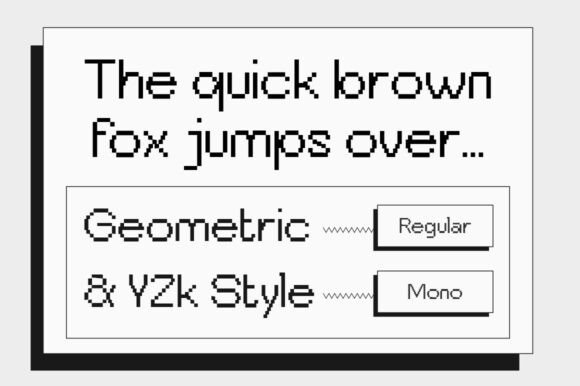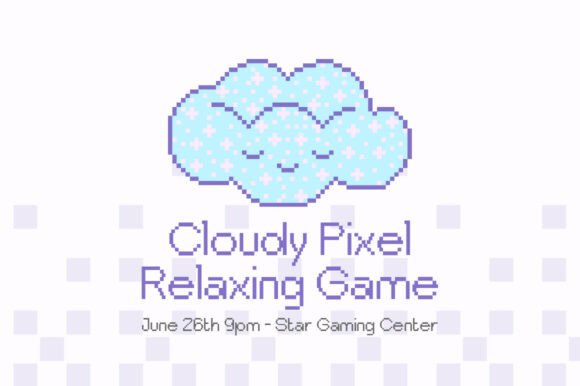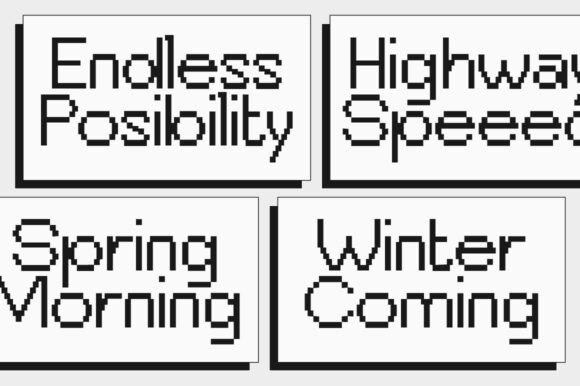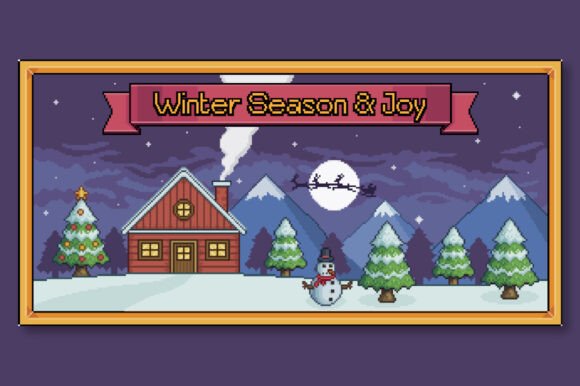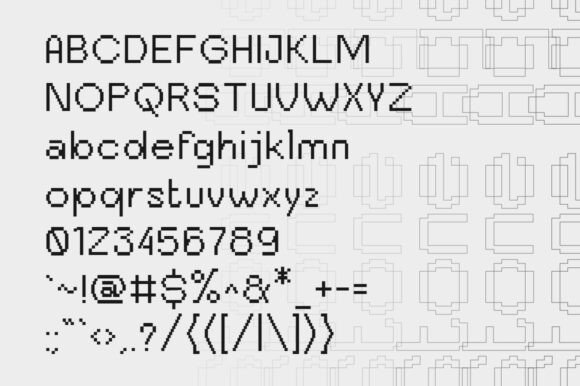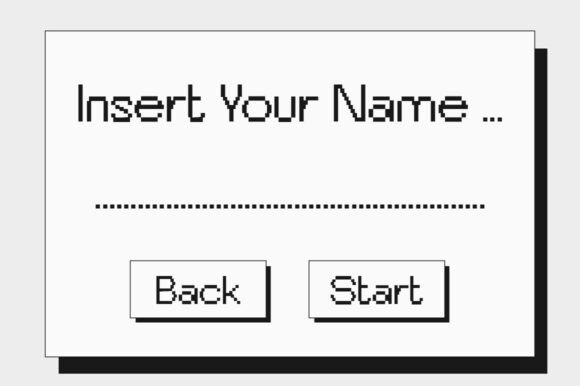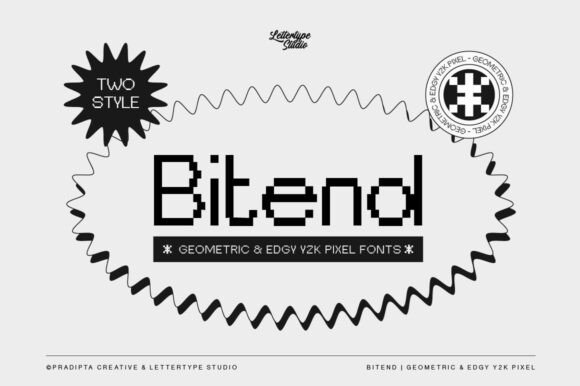
Introducing Bitend Font: The Ultimate Geometric, Edgy Pixel Y2K Font
Are you ready to add a bold, retro-inspired touch to your designs? Look no further than Bitend Font, a geometric, edgy pixel Y2K font that combines the nostalgic styles of the 80s and 2000s. This versatile font is perfect for creating eye-catching headlines, logos, pixel games, 8-bit game interfaces, and editorial content that demands attention.
A Blast from the Past: Nostalgic 80s and 2000s Styles
Bitend Font is a masterful blend of retro styles, bringing together the geometric and pixelated elements of the 80s and 2000s. The result is a font that is both nostalgic and modern, with a unique vintage flair that sets it apart from other fonts. Whether you’re designing a logo, creating a pixel game, or crafting editorial content, Bitend Font is the perfect choice for adding a playful yet impactful touch to your project.
Versatile and Adaptable: Perfect for a Variety of Uses
One of the standout features of Bitend Font is its versatility. This font is ideal for a wide range of applications, including:
- Headlines: Create bold, attention-grabbing headlines that demand attention.
- Logos: Design unique, memorable logos that showcase your brand’s personality.
- Pixel Games: Add a retro touch to your pixel games with Bitend Font’s pixelated style.
- 8-bit Game Interfaces: Create authentic, retro-style game interfaces with ease.
- Editorial Use: Add a touch of nostalgia to your editorial content, such as articles, blog posts, and more.
Multiple Styles and Multilingual Support
Bitend Font offers two distinct styles: normal and monospaced. This allows you to choose the perfect style to suit your design needs. Additionally, Bitend Font includes multilingual support, making it easy to use in a variety of languages and contexts.
Exceptional Legibility: Works in Large and Small Sizes
One of the key benefits of Bitend Font is its exceptional legibility. Whether you’re using it in large or small sizes, Bitend Font remains clear and easy to read. This makes it perfect for a wide range of applications, from billboards and signage to digital screens and print materials.
- Font Styles: 2 styles (normal and monospaced)
- Language Support: Multilingual support
In conclusion, Bitend Font is a versatile, geometric, edgy pixel Y2K font that is perfect for designers and crafters who want to add a bold, retro-inspired touch to their designs. With its multiple styles, multilingual support, and exceptional legibility, Bitend Font is ideal for a wide range of applications, from headlines and logos to pixel games and editorial content. So why wait? Download Bitend Font today and start creating designs that demand attention.